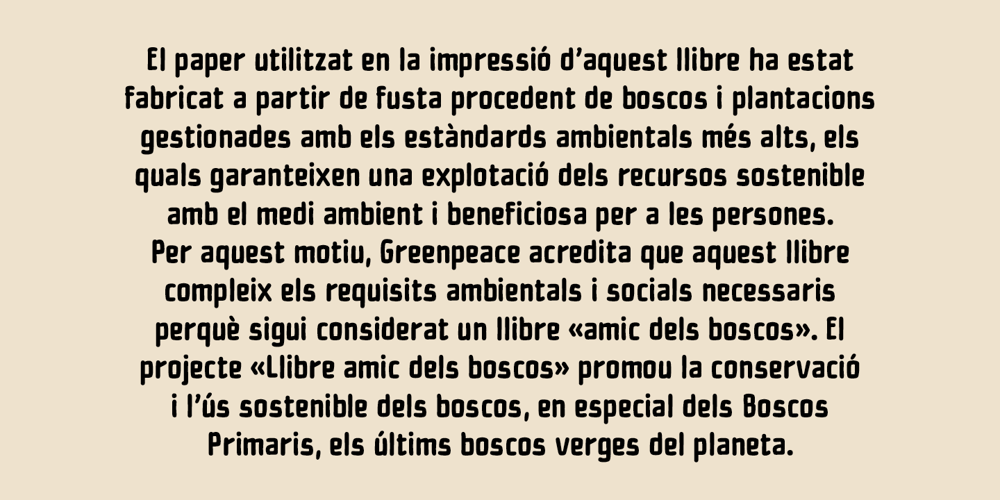
Chico Font Family was designed by José Manuel Urós and published by Type-Ø-Tones. Chico contains 2 styles and family package options. Chico was by designed by Javier Mariscal and Josema Urós specifically for the final roll of credits in the animated film Chico y Rita.The goal was to design a typeface with a good readability but that conveyed a strong script character and, in some way, tuned to the style of line used throughout the film.Using a modular sans-serif as a template, Javier Mariscal reinterpreted the forms freely, while maintaining gridlike proportions.Chico can be useful for comic-book lettering, editorial work and display applications.